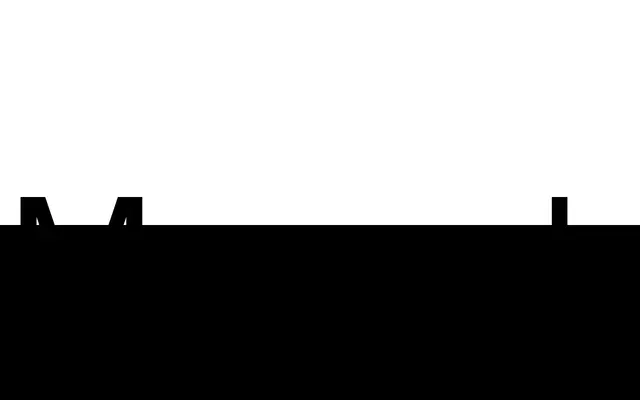
Manual Pozor
A digitisation of the oblique letterforms found on old Slovak warning signs, drawn by Ondrej Jób and released as a caps-only geometric sans in seven weights.
Derived from the stencil-drawn lettering of Slovak enamel warning signs, this typeface is the oblique counterpart to Manual Grotesk B, sharing its geometry but carrying slightly larger arc radii. It is caps-only with no stroke contrast, a narrow set-width and seven styles from Thin to Ultra, making it suited to display and headline work. Sharp corners and fine details that would have been lost in enamel production are preserved here, faithful to the original sign designers' drawings.
Caps-only, no-contrast geometric sans with narrow proportions drawn from Slovak warning sign lettering. The oblique stance and rounded details place it firmly in the utilitarian geometric tradition.